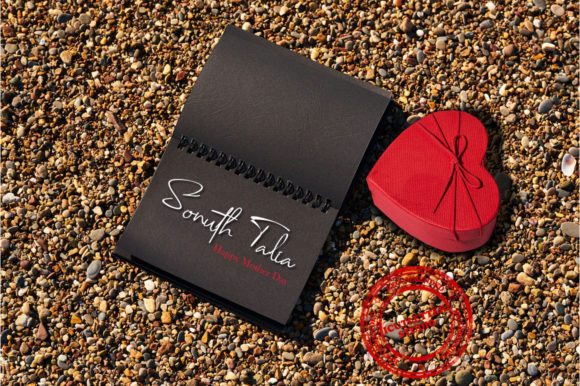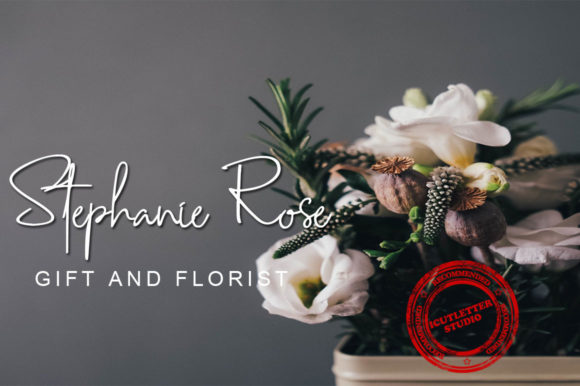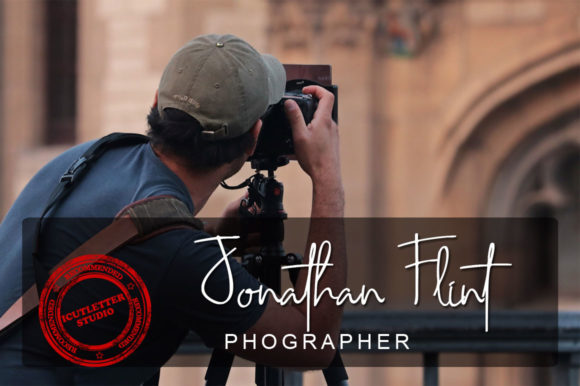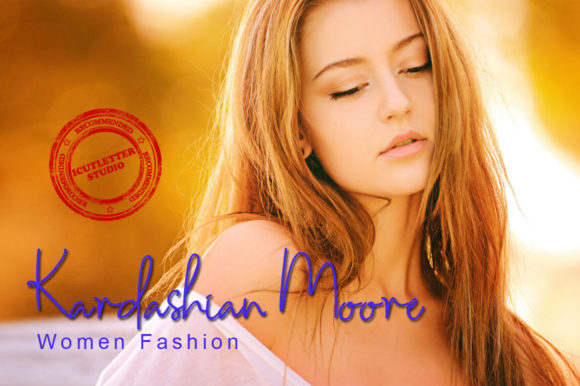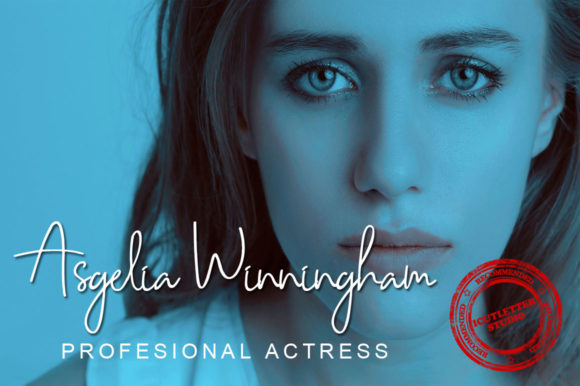
Roseanne Font
About Roseanne Font
The Roseanne is an amazing handwritten signature script. It has a modern style and includes beautiful and elegant letters.
It’s perfect for adding a striking look to your signatures, magazines, quotes, logos, blog headers, posters, branding, fashion, apparel, letters, invitations, stationery, and much more!